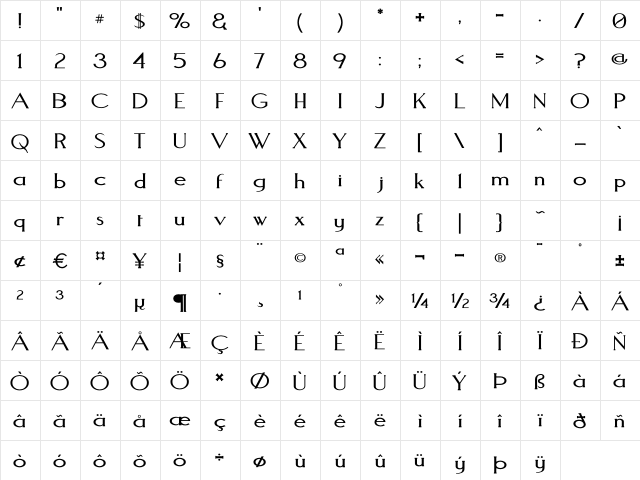
Aquaduct (full set) Plain
Design Context for Aquaduct (full set) Typeface
Aquaduct (full set) offers clean, dependable letterforms without strong stylistic allegiance, making it a practical choice for designers who need flexibility.